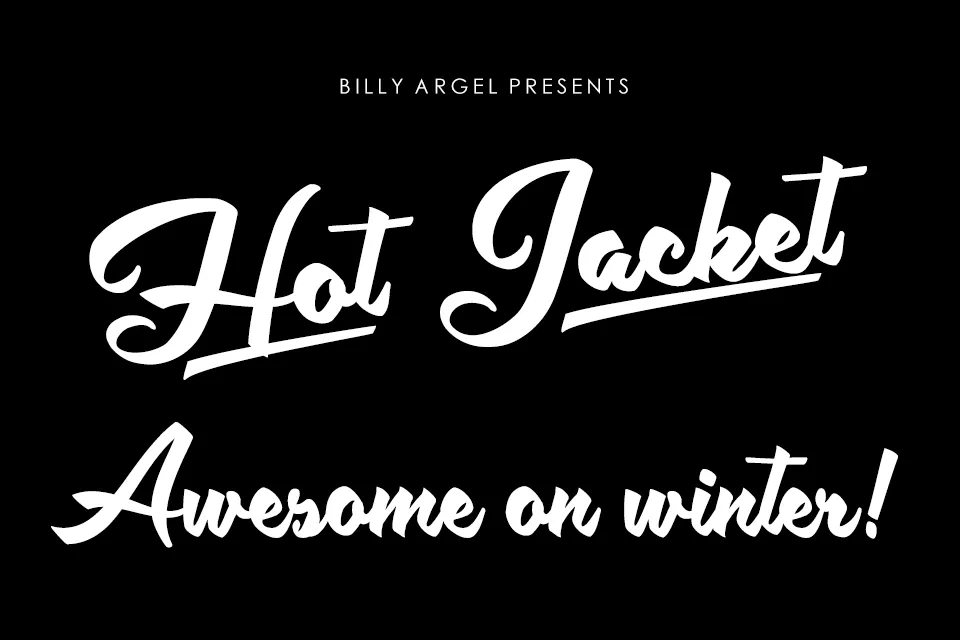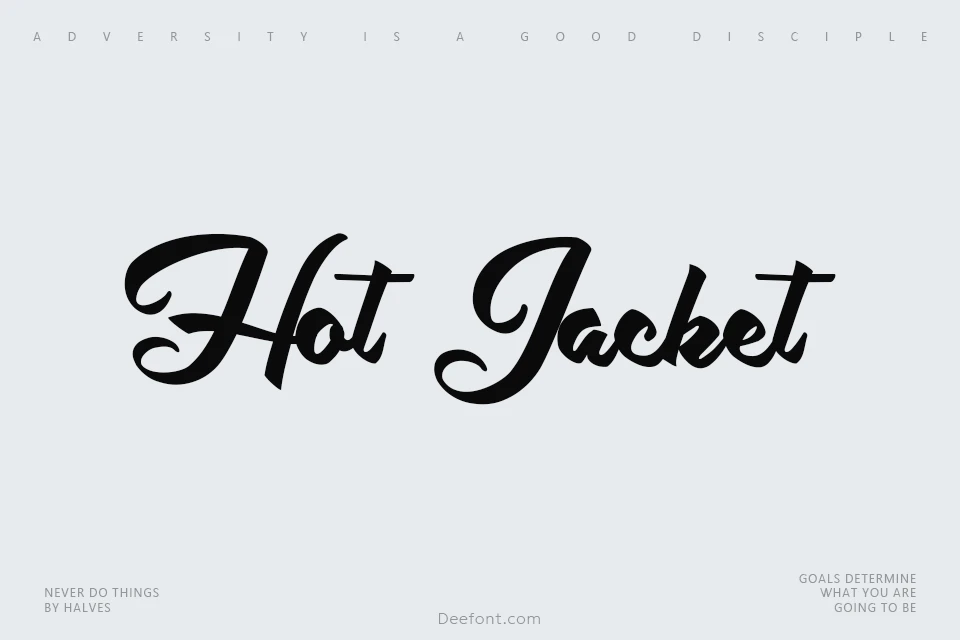
Hot Jacket Font
Hot Jacket Font is a stylish cursive typeface designed by Billy Argel. It features a bold, flowing script with interconnected letters, making it ideal for creative projects that require a touch of elegance. The font supports a wide range of languages and is available for personal use. Its unique design includes long ascenders and a classic script appearance, making it suitable for invitations, branding, and other artistic applications. With its eye-catching style, Hot Jacket Font adds a distinctive flair to any text, ensuring that your designs stand out.